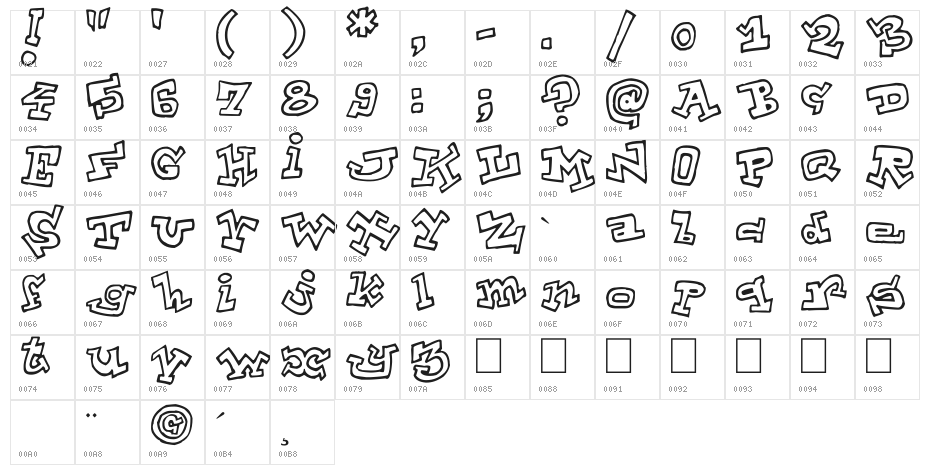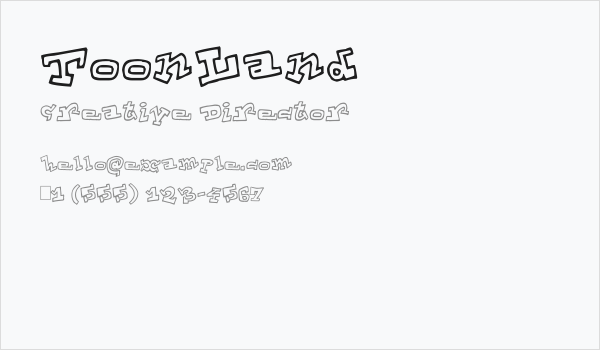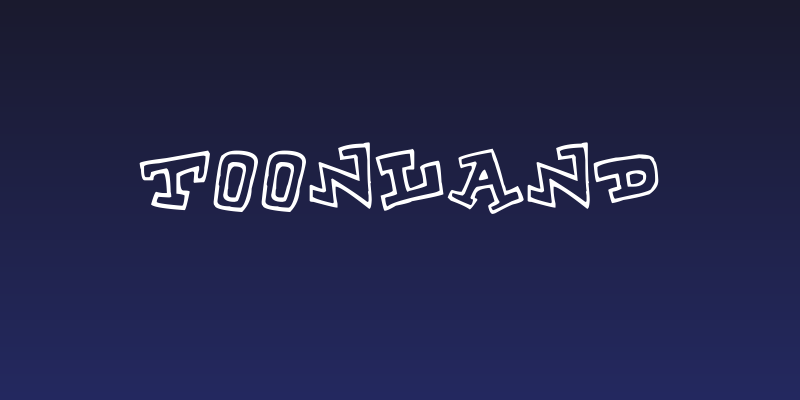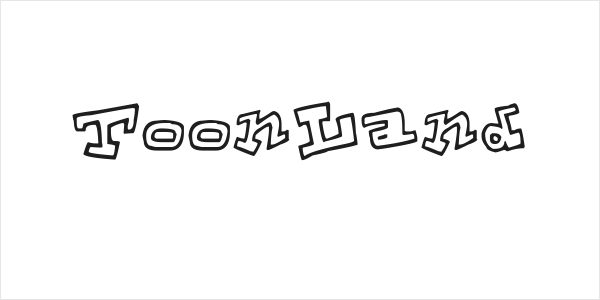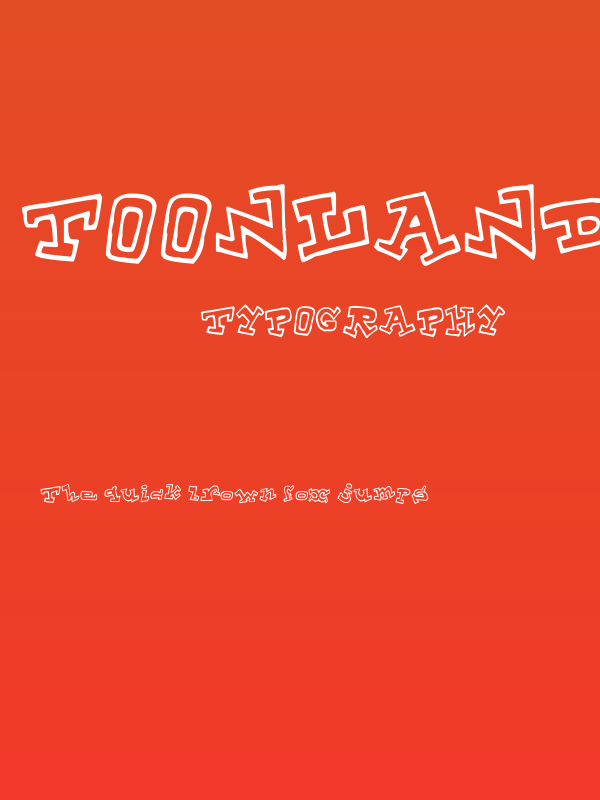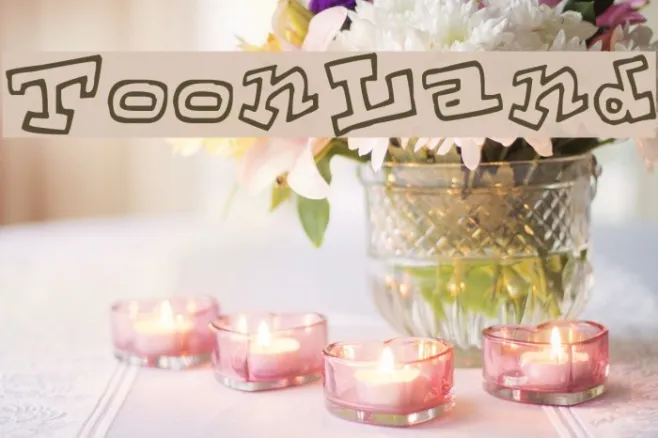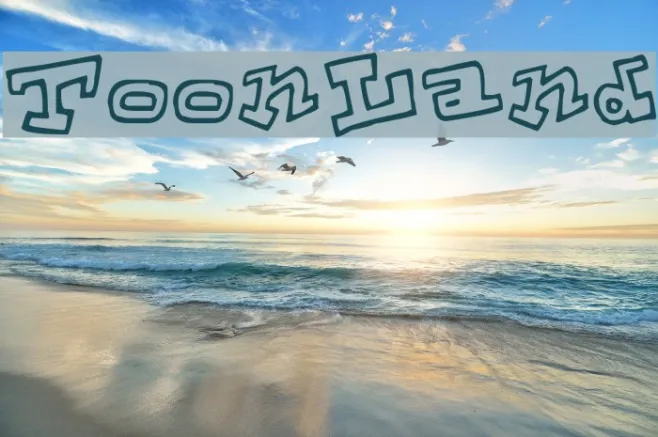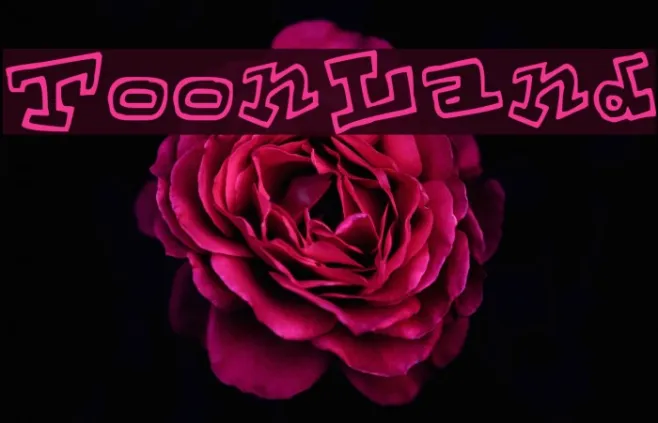
ToonLand Font
ToonLand Description
This playful and whimsical font features a cartoonish style with exaggerated, uneven lines and a bold outline. Each character appears hand-drawn, with a lively and energetic feel that evokes a sense of fun and creativity. The uppercase and lowercase letters maintain a consistent style, with quirky angles and a slightly irregular baseline that adds to its charm. Numbers and special characters follow the same playful design, making the font versatile for various creative projects. The font's unique style is perfect for capturing attention and adding a touch of humor and lightheartedness to any design.
| Overall Style | Playful, Cartoonish, Whimsical |
| Use Case | Headlines, Logos, Posters, Children's Content |
| Proposed Projects | Ideal for children's books, comic strips, playful branding, party invitations, and animated video titles. |